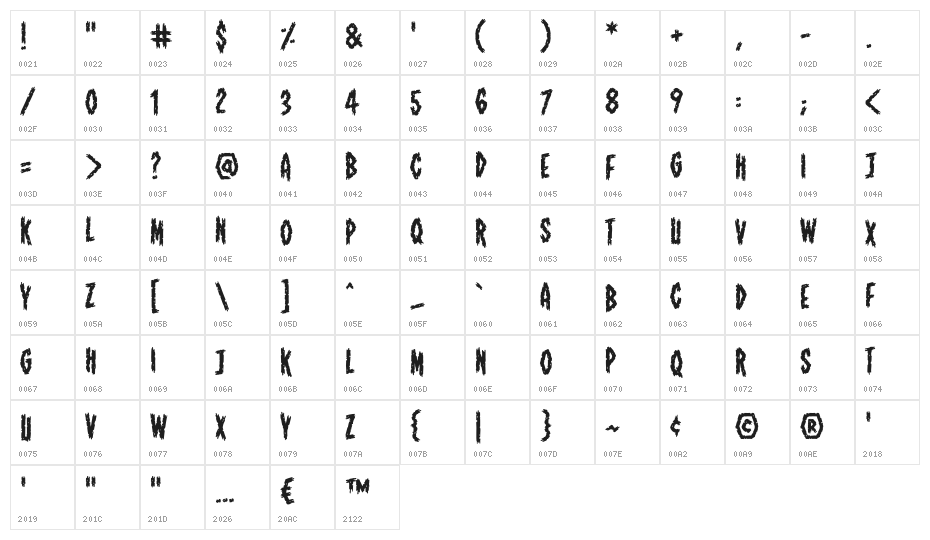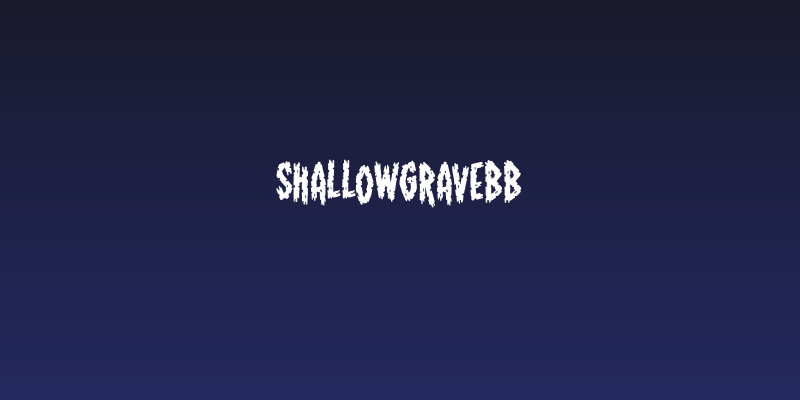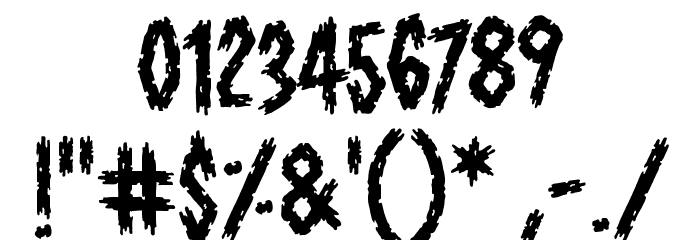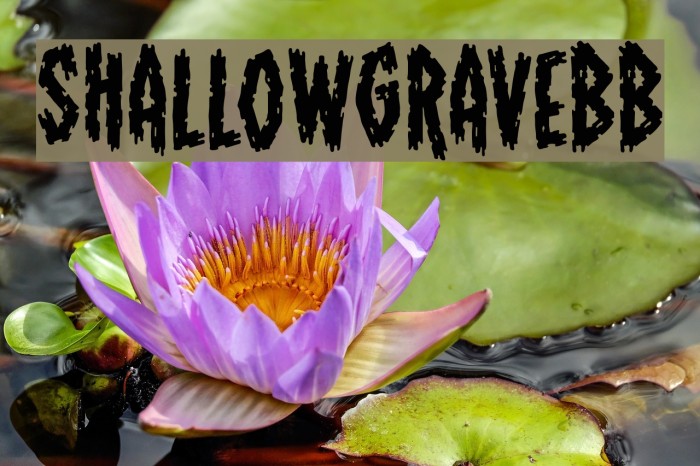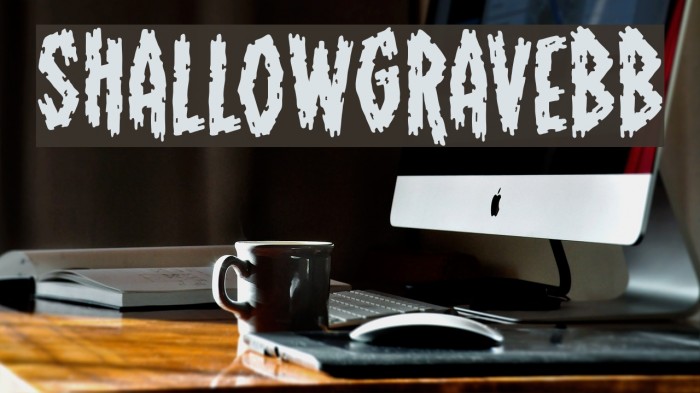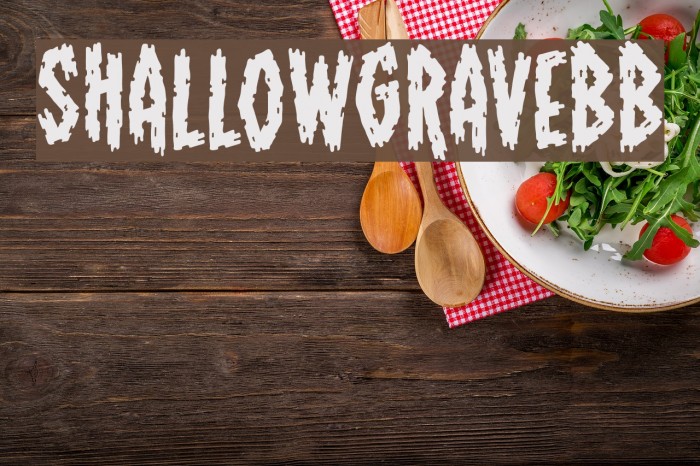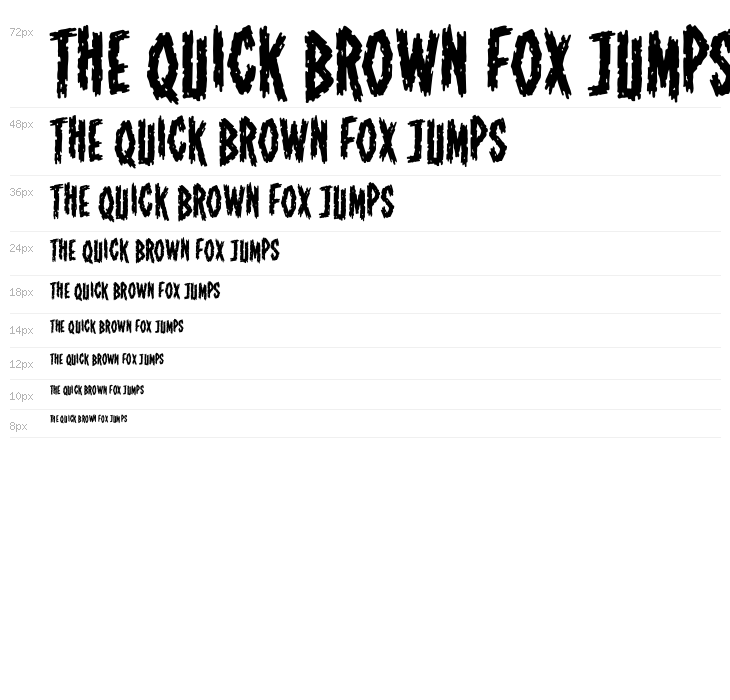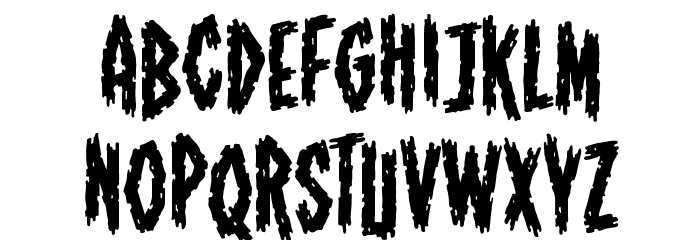
ShallowGraveBB Font
| Progetti proposti | Ideal for horror movie posters, Halloween event flyers, edgy album covers, or any project needing a spooky, unconventional typeface. |